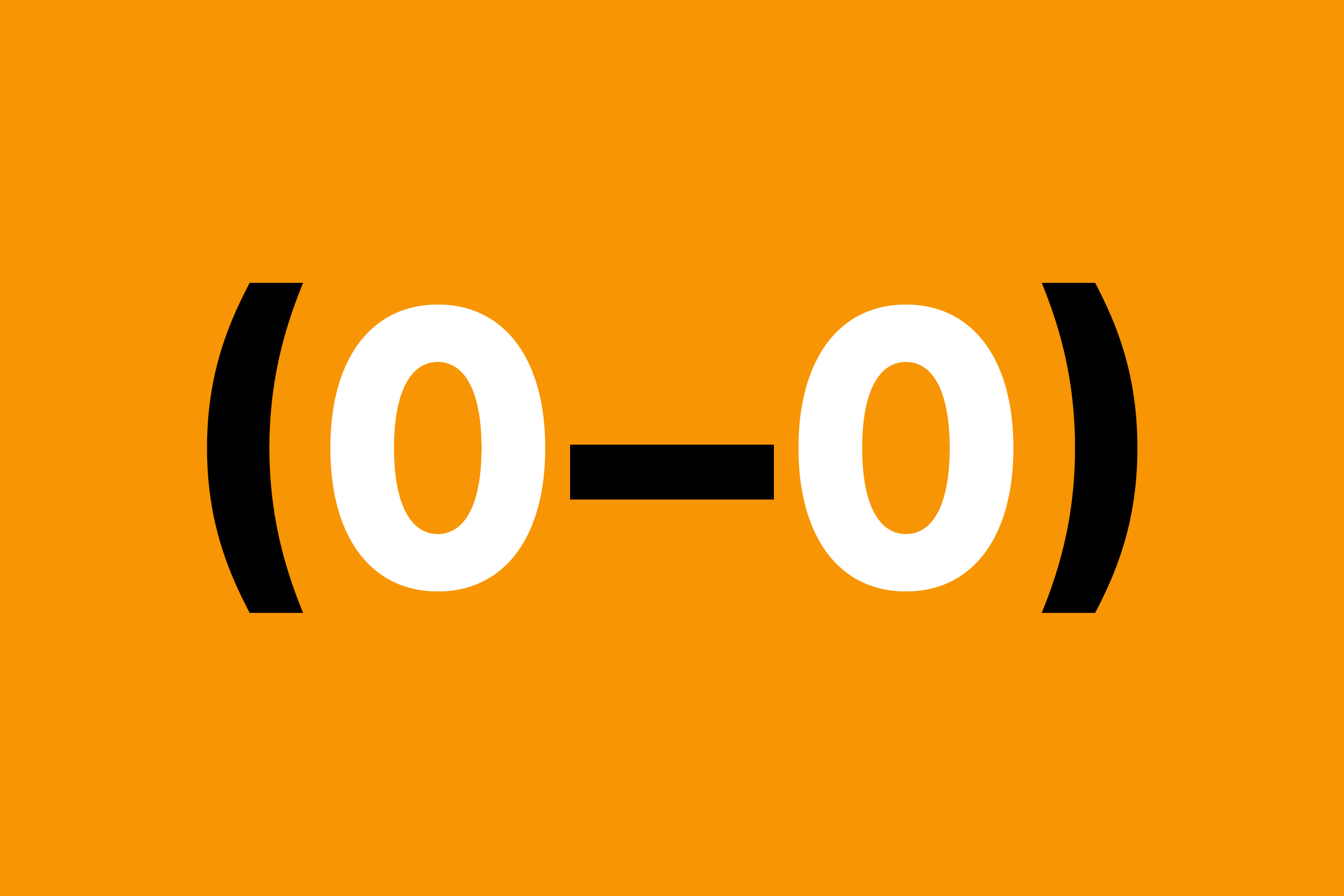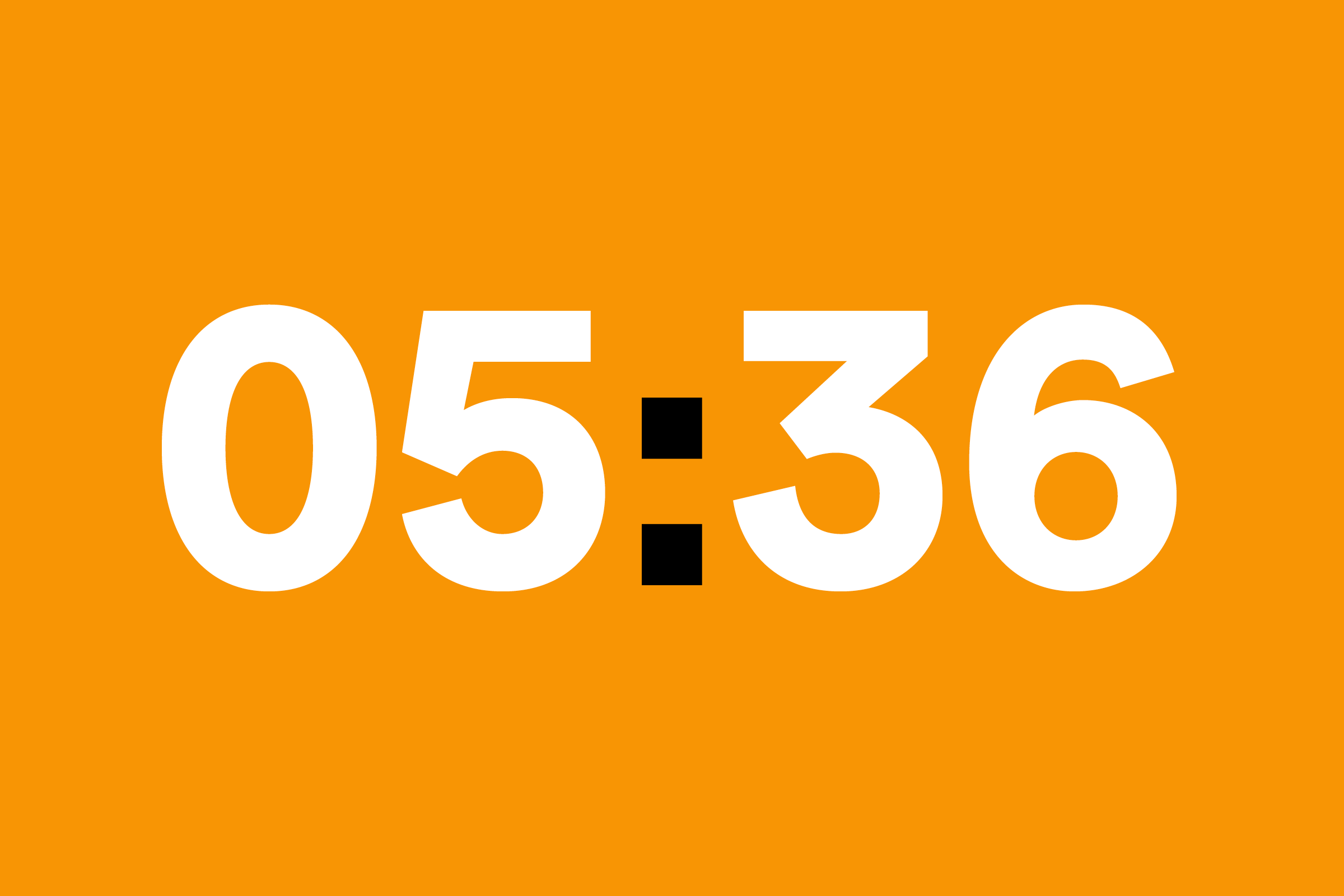
UEFA Europa League
As the governing body of European football, the UEFA’s responsibilities are far-reaching; among them is, of course, the act of broadcasting various matches and related programming to a wide audience across a number of borders and languages. The universals in this case are the Sport itself, first and foremost, followed shortly thereafter by Time Remaining and Score.
To that end, we began the creative process with our focus on numerals, ensuring that at any scale and upon any medium — from digital scoreboards, to lower-thirds of broadcast screens, to figures within infographics and player statistics — the digits led the way.
The typographic behavior of those integers laid much of the foundation for the three-weight, six-style type family that followed. The commissioner, who was particularly fond of an early retail release (Reader, 2009), asked for a type that was relatively wide in stature and borrowed from some of the grotesque characteristics found within the Reader family.
As a counter or juxtaposition to several humanist type styles already in rotation within the UEFA’s various structures, we proposed a typographic tool that would act as a foil and complement to those inconstant variables. We landed on Europa Nuova: a neo-grotesque, geometric sans serif workhorse that would serve as a backbone for ongoing UEFA endeavors.
With its sturdy, wide-set numerals leading the way, the remainder of the type was fleshed out with subtle grotesque details interspersed, several distinctive characters to set it apart stylistically (see, for example, the single-storey ‘a’), and an overall legibility that allows the type to transcend geographies and serve the client for quite some time to come.
Typeface: Europa Nuova
Commissioner: Union of European Football Associations (UEFA)
Year: 2014
6 Styles: Regular, Regular Italic, Bold, Bold Italic, Extra Bold, Extra Bold Italic
Coverage: Latin-A Extended, Cyrillic, Greek
Classification: Neo-Grotesque / Geometric Sans Serif